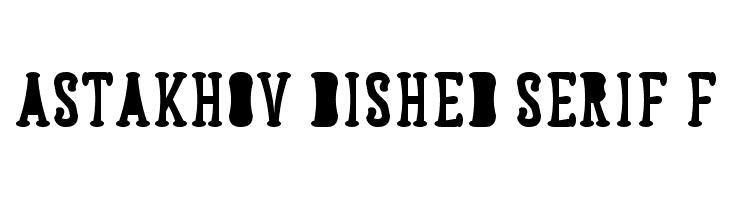
A modern, geometric font with tall, narrow characters and consistent stroke width.
A dynamic, expressive handwritten font with fluid cursive strokes.
A bold, 3D block-style font with cube-like encasements and sharp geometric edges.
A decorative and elegant script font with ornate uppercase letters and smooth lowercase characters.
A bold, decorative font with heart-shaped cutouts and consistent stroke width.
A sophisticated script font with fluid, cursive strokes and elegant curves.
A bold, distressed, tattoo-inspired decorative font with high contrast and sharp serifs.
A bold, italic font with a rough, textured style and dynamic energy.
A bold, geometric font with a gradient effect and futuristic style.
A bold, italic font with a textured, distressed look and strong visual impact.
设计师偏爱 Nue Gothic Demo, Roumites, Kasten Negative Regular, Wedding Paradise and Astakhov Dished Sh Gl H Serif,因为其造型干净、适用范围广—— 从品牌识别到落地页、海报都能胜任。